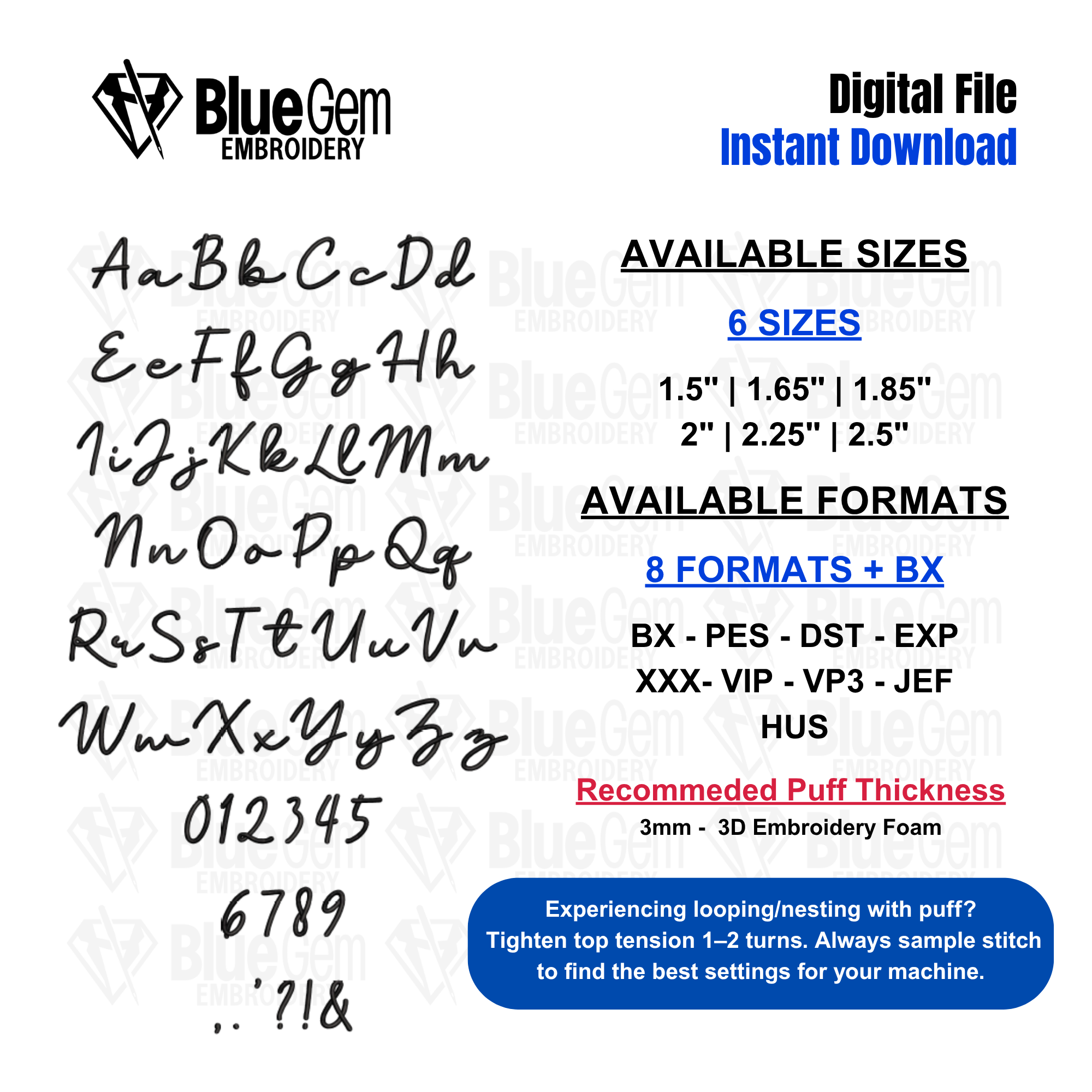
Blakely 3D Puff Embroidery Font – Machine Embroidery Font, 6 Sizes, BX Format Included (Digital Download)
All the letters are 3D Puff letters. Each letter has a tackdown stitch for the foam. Be sure to color sort after creating your word to ensure that the foam is tackdown for the whole word before starting the satin stitch. Given that this is a script font, you may need to update the sequence after color sorting in Embrilliance.
Blakely Script 3D Puff Embroidery Font – Machine Embroidery Font, 6 Sizes, BX Format Included